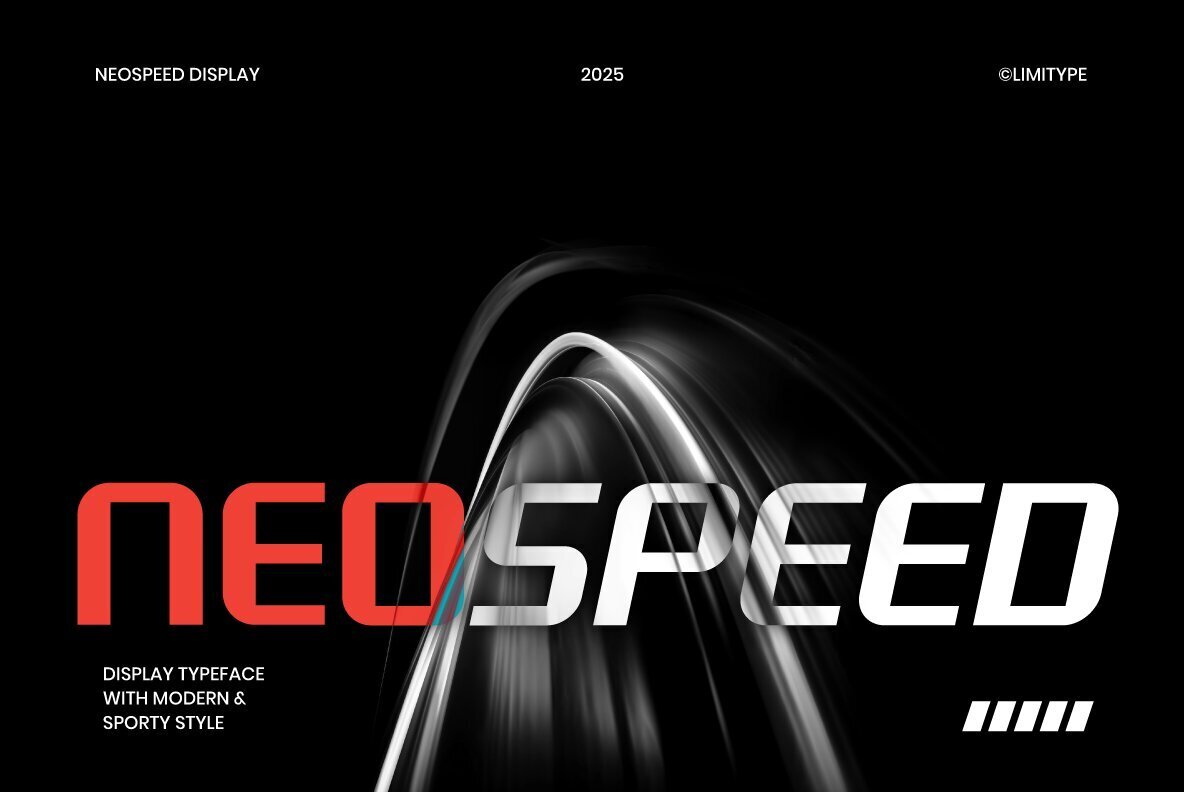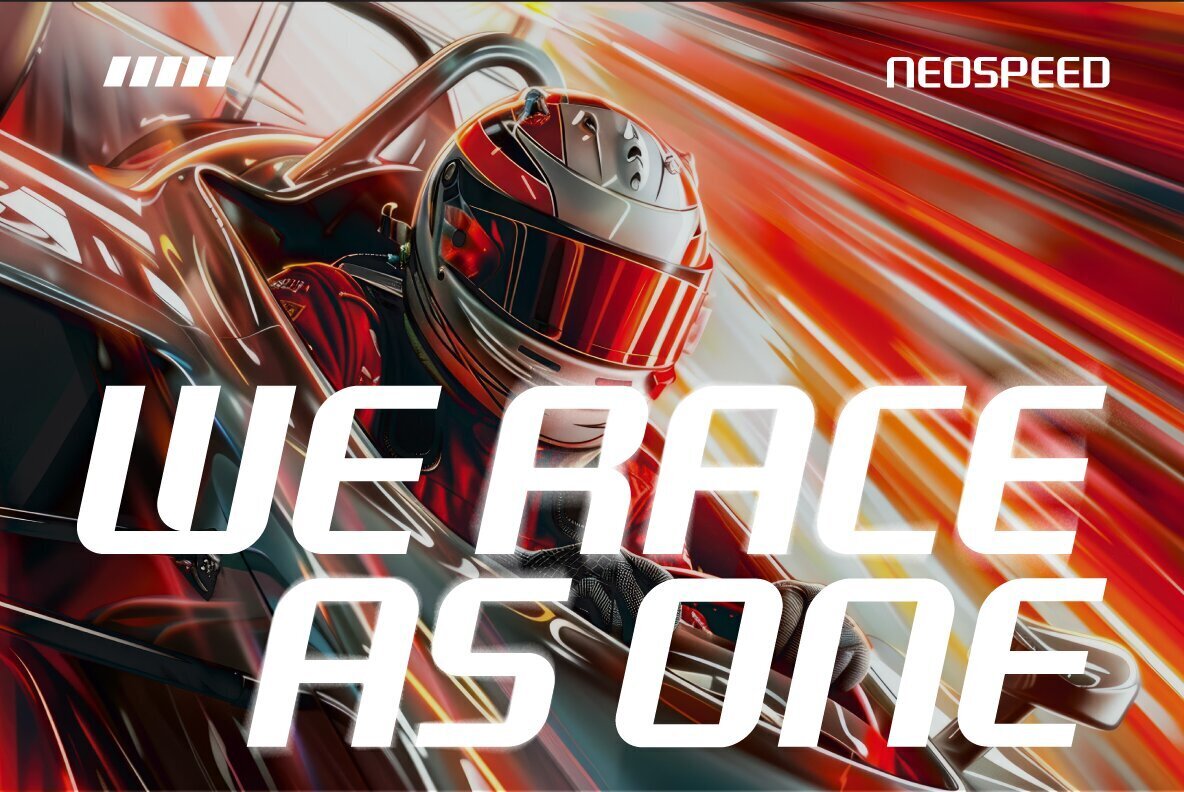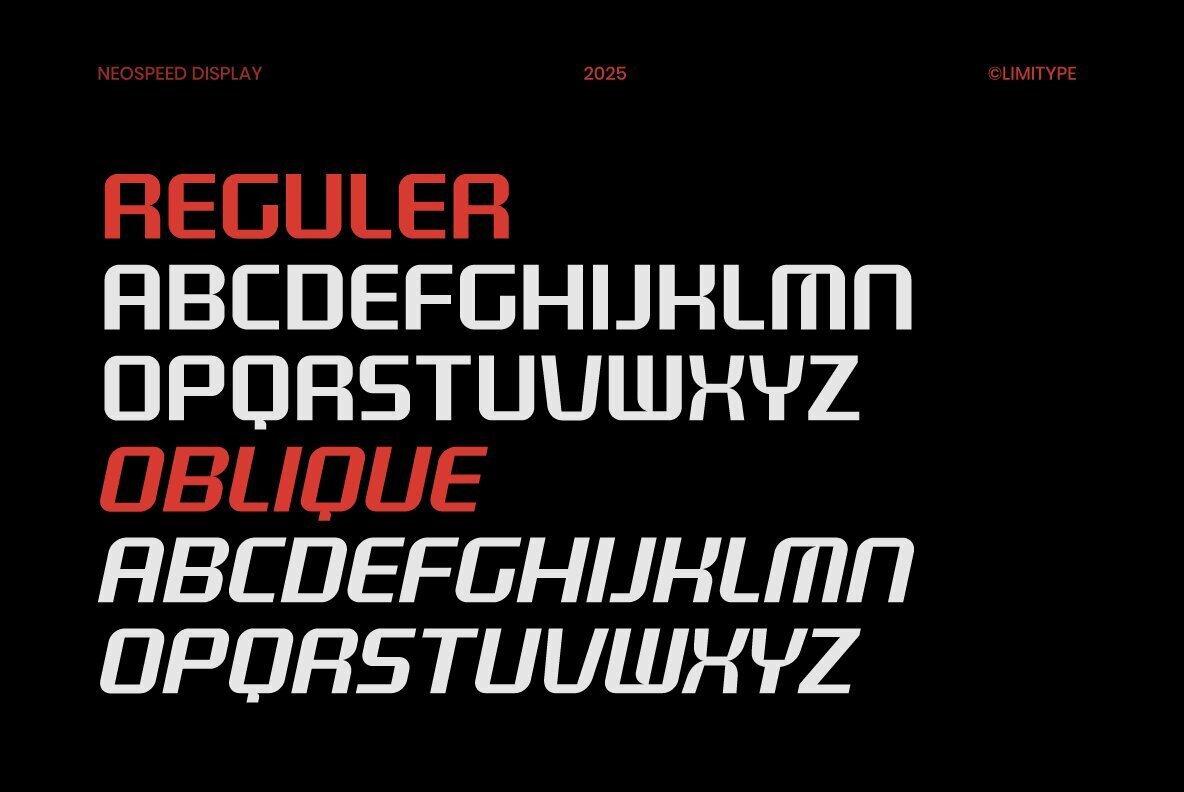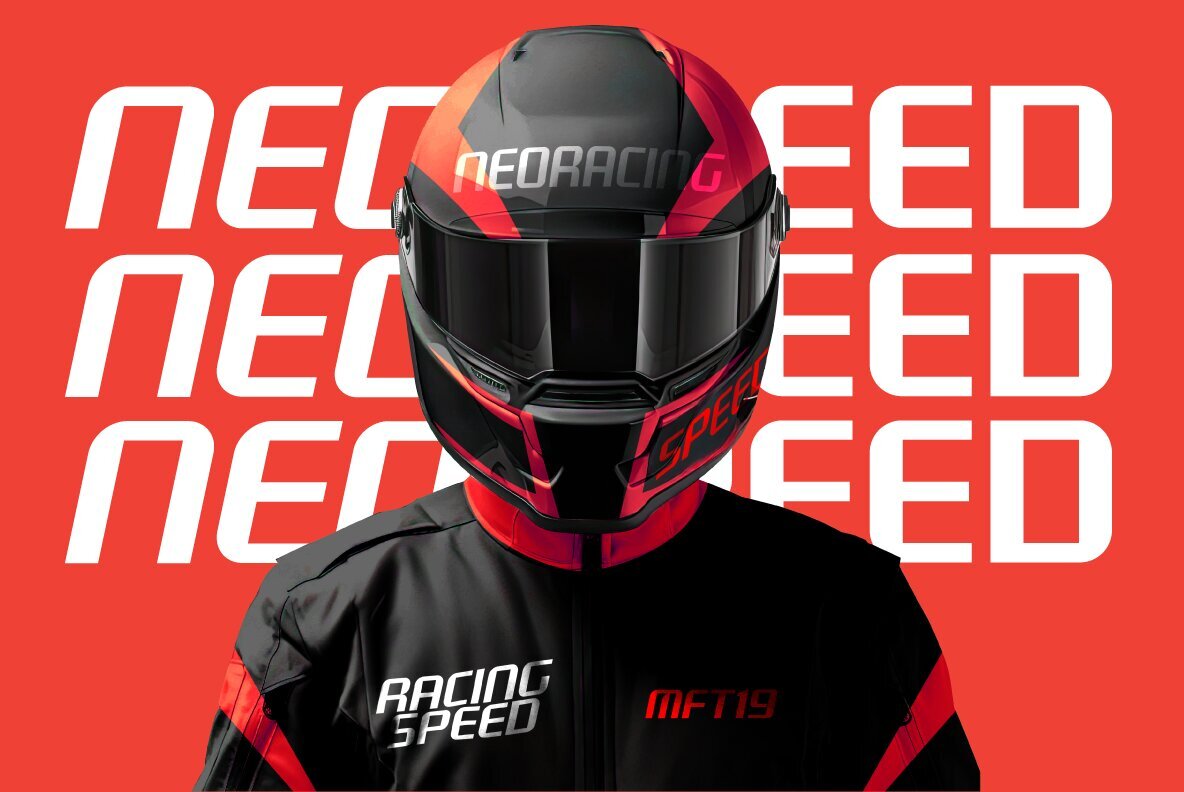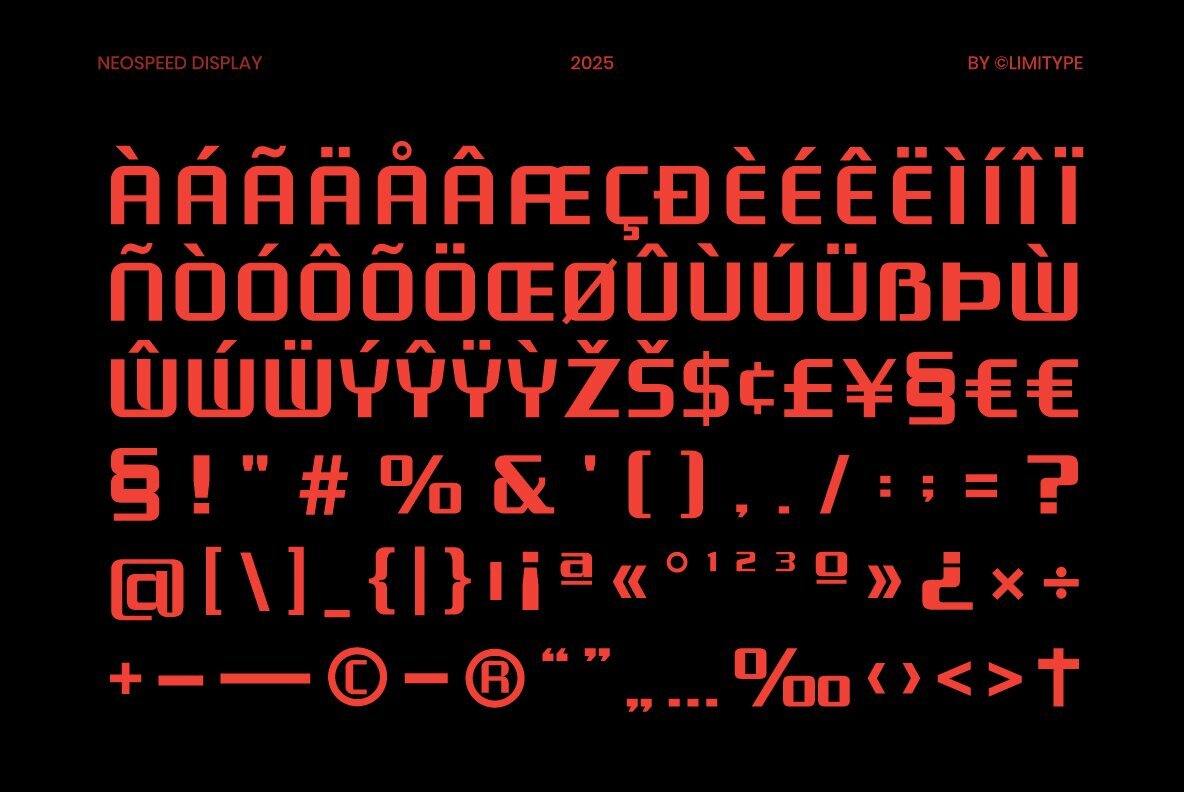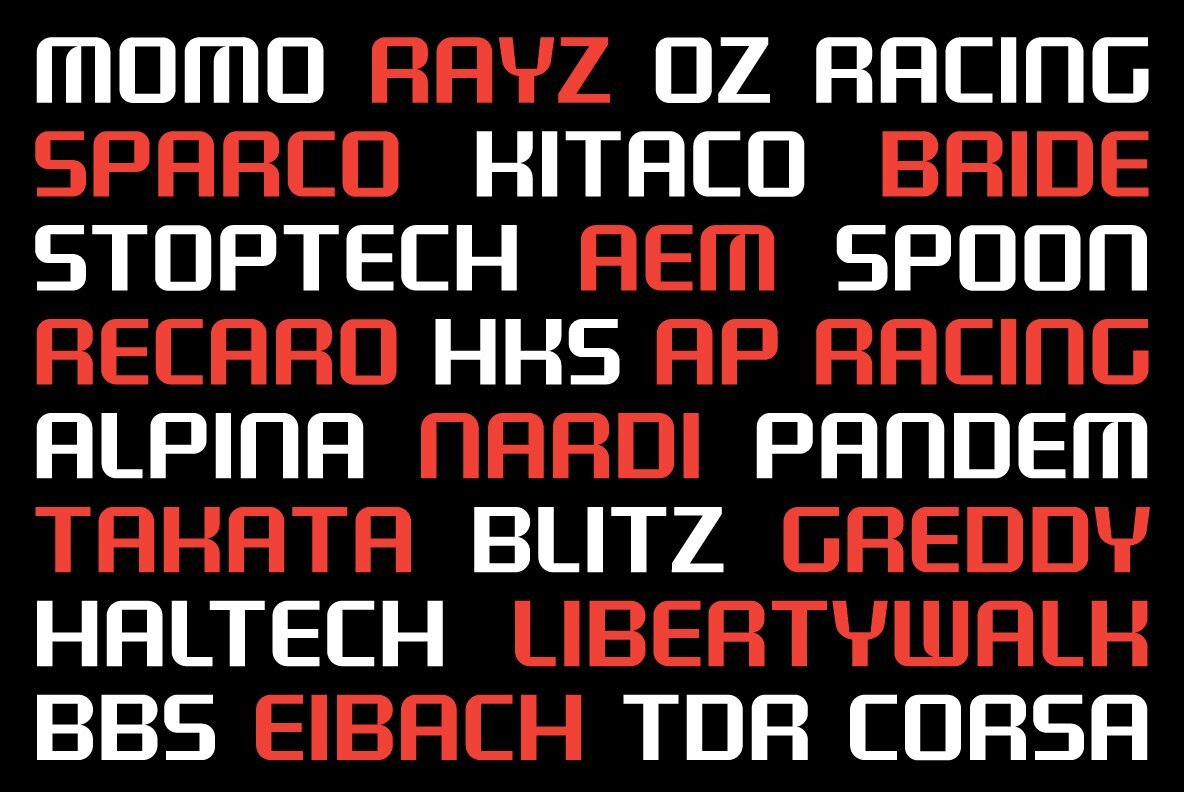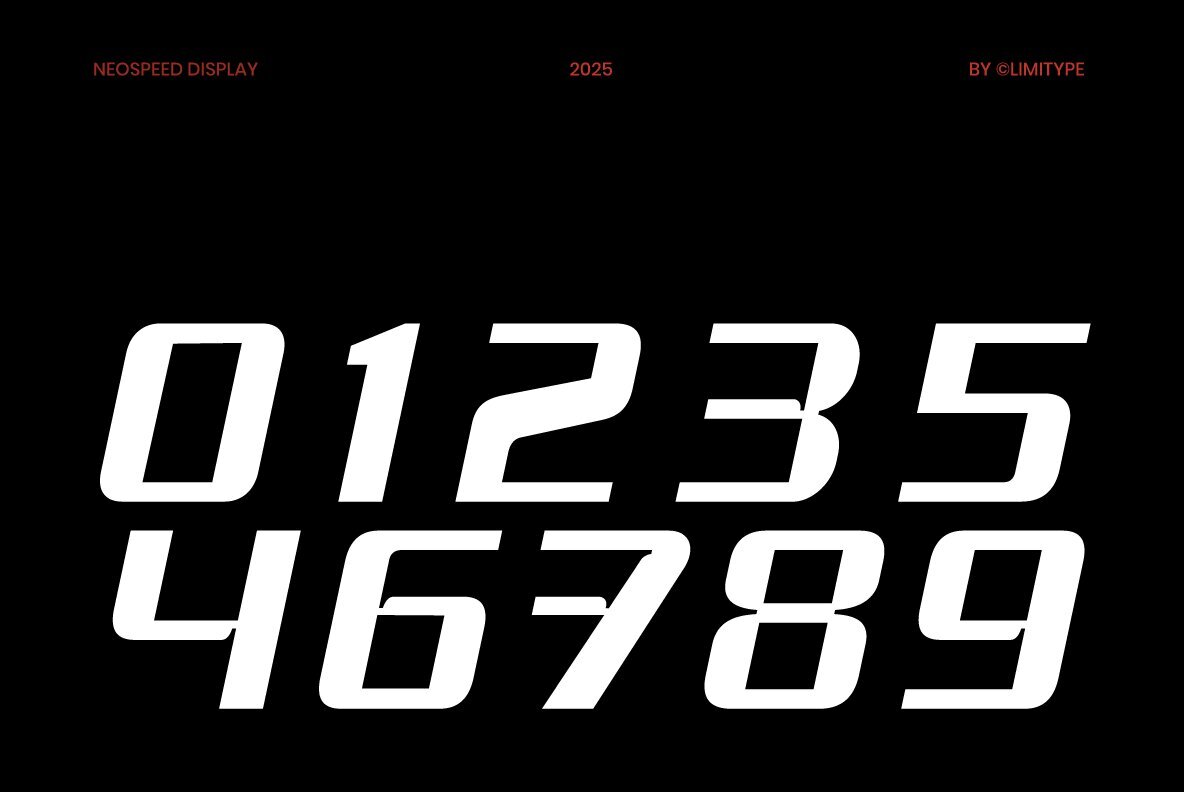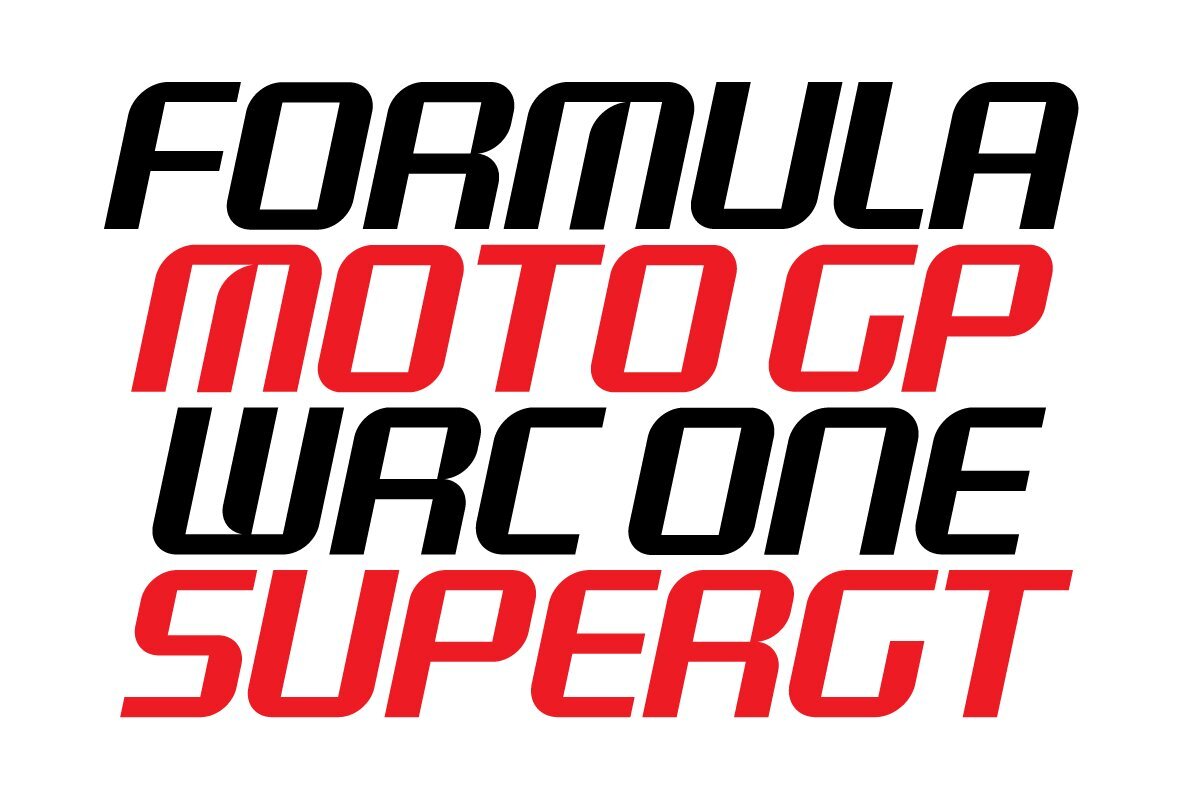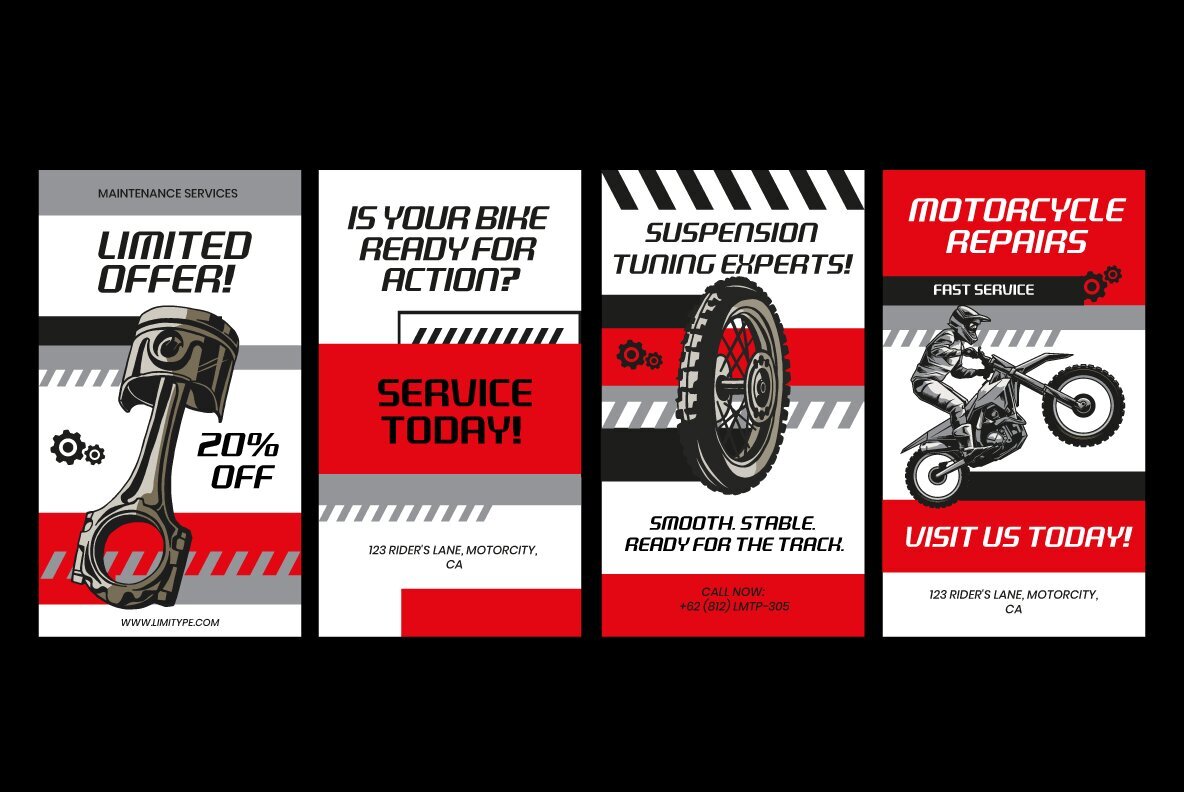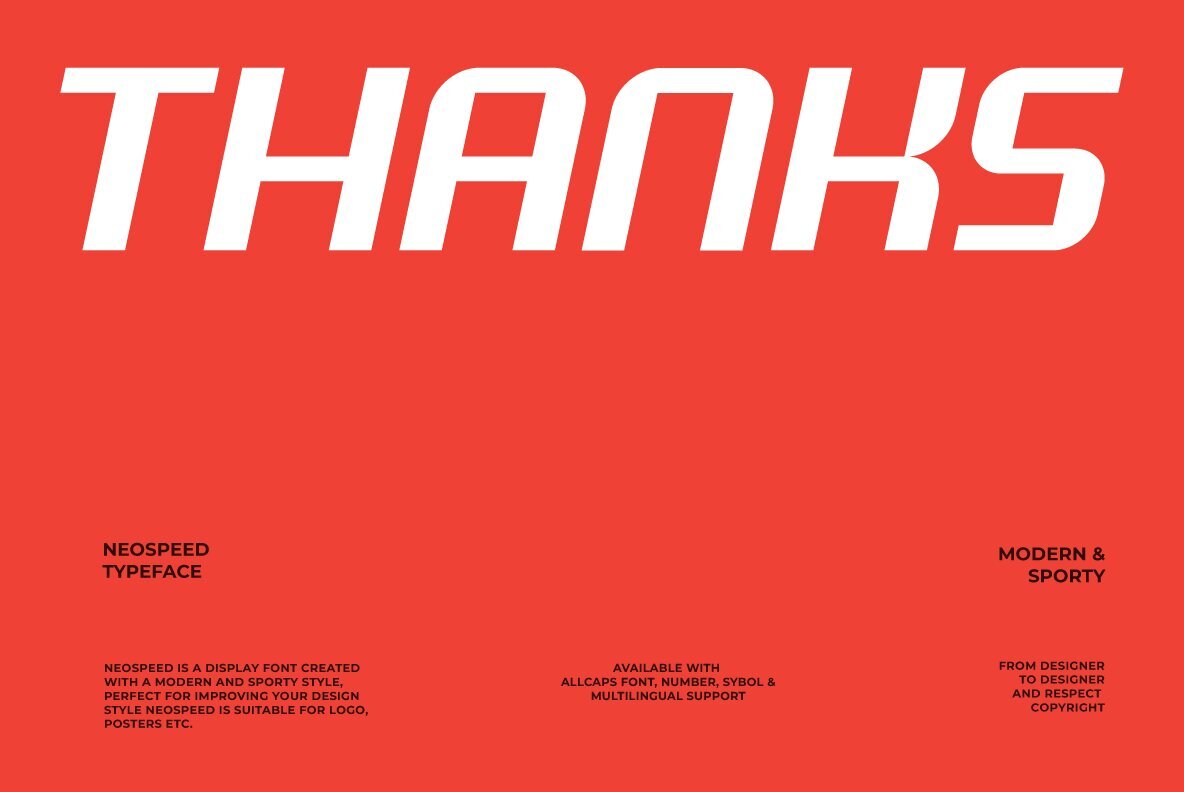
Neospeed Font
Neospeed introduces a dynamic, modern look tailored for designs where speed and energy matter. Characterized by sharp lines and fluid curves, this typeface anchors futuristic and forward-thinking aesthetics. Its distinctive shapes bring a high-tech vibe suitable for a range of cutting-edge projects. Whether you're designing for tech startups, automotive brands, gaming visuals, or sci-fi concepts, Neospeed stands out with precision and clarity. This typeface offers a strong visual identity that supports both bold headlines and modern user interfaces. The result is a contemporary look that remains highly readable and visually impactful.Neospeed Futuristic Typeface